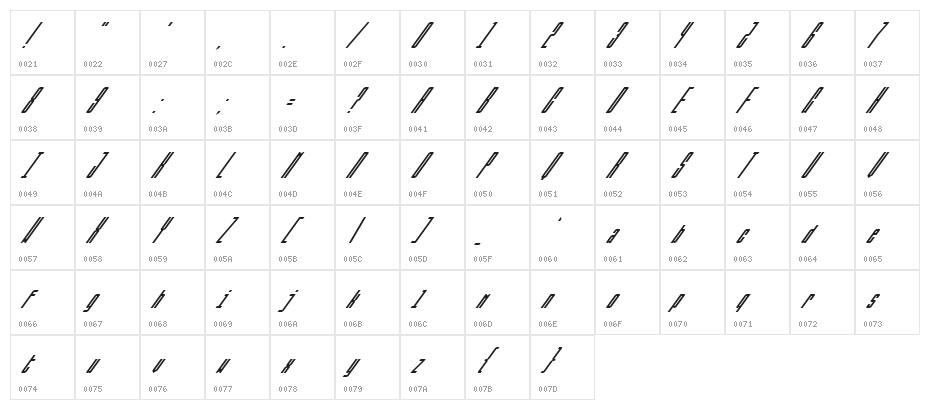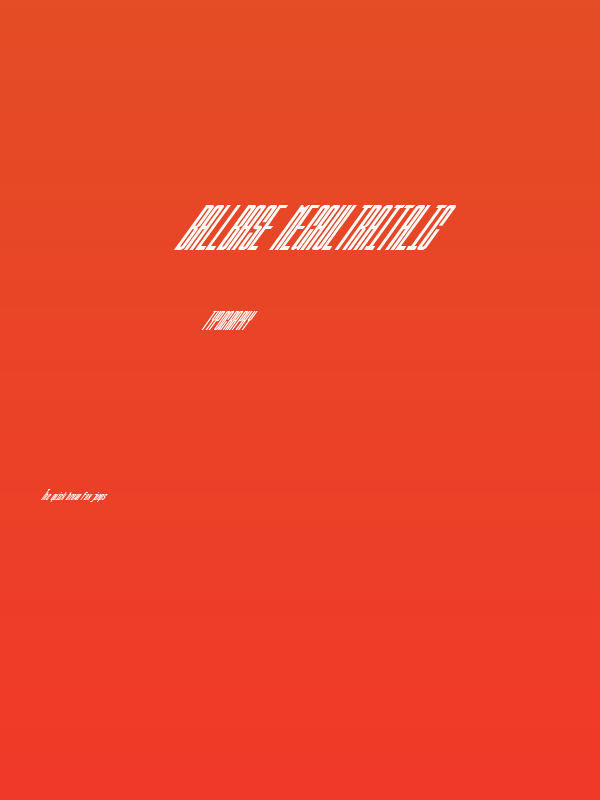
Ballbase MegaUltraItalic Font
Ballbase MegaUltraItalic Description
This font exhibits a bold and dynamic italic style with a strong forward slant, giving it a sense of motion and energy. The characters are tightly spaced, enhancing its compact and impactful appearance. The strokes are thick and consistent, providing a uniform look across all characters. Its design is modern and edgy, making it suitable for projects that require a striking and attention-grabbing typeface. The font's angular and sharp edges contribute to its aggressive and futuristic aesthetic.
| Proposed Projects | Ideal for sports branding, dynamic posters, edgy advertisements, and futuristic designs. |